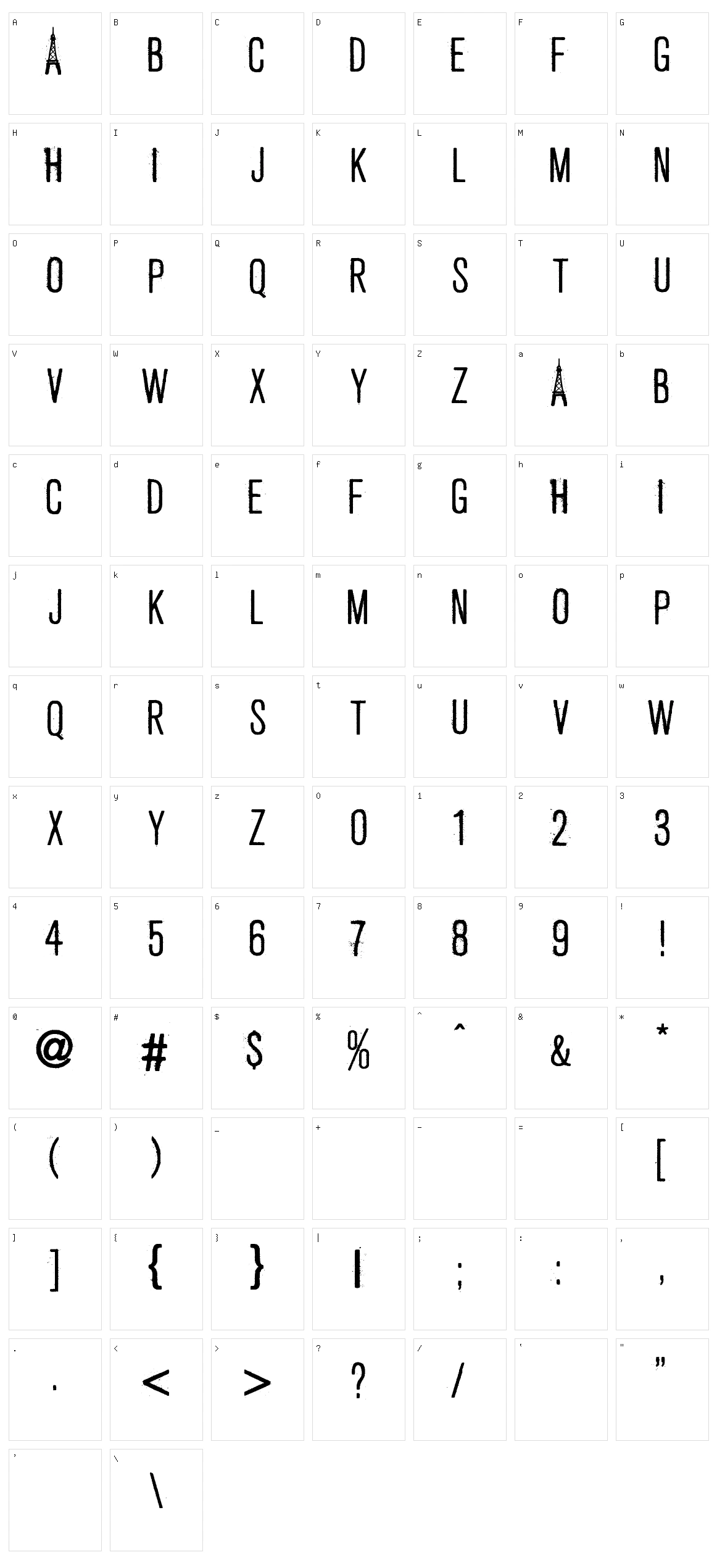
The free font Pray For Paris is carefully designed by 1001 Free Fonts, showcasing a thoughtful balance of creativity and usability and falls under the Eroded font style. When you download the ZIP file, it contains only 455.99 KB of font files, making it lightweight and quick to download. Please review the license details below to understand permitted usage and distribution rights. If license information is not available, we recommend using this font for personal projects only or contacting the author directly for commercial usage permissions.